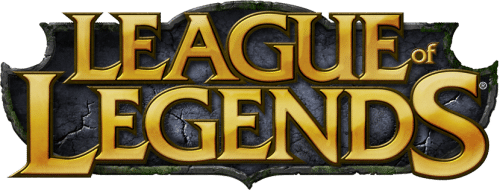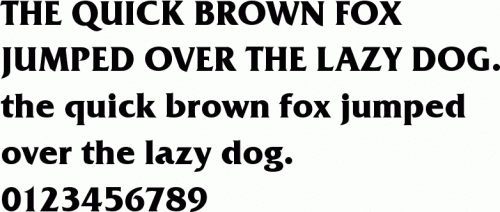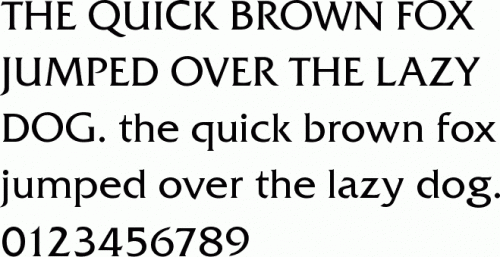
League of Legends is a multiplayer video game was first released on 27 October 2009 by Riot Games. Friz Quadrata Font is a serif font of League of Legends, designed by Ernst Friz and Victor Caruso.